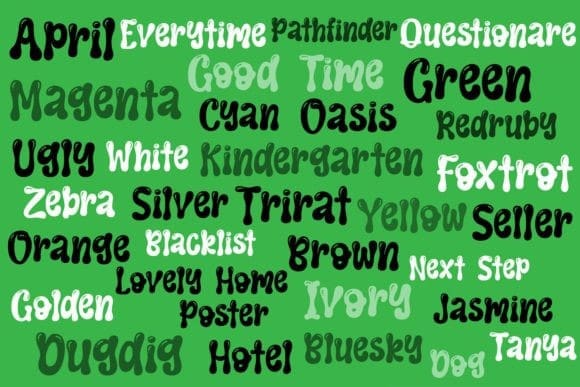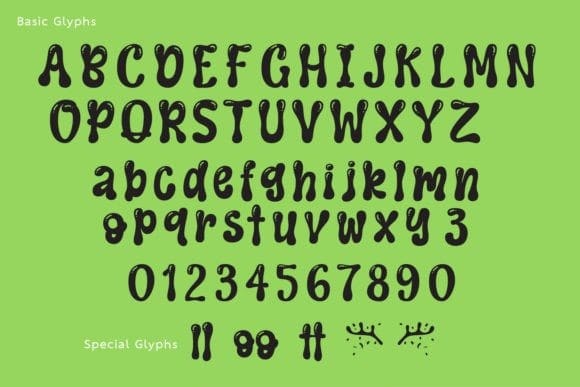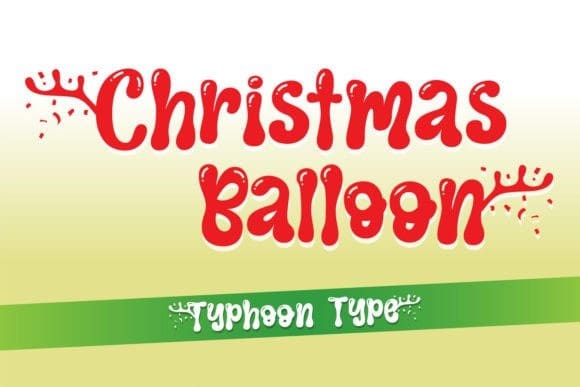
Christmas Balloon Font
Christmas Balloon Font is an English font that dances with the festive spirit of Christmas. With its whimsical design, the characters take on the delightful appearance of inflated balloons, featuring enlarged heads and tails reminiscent of cheerful bubbles. This font exudes a playful and lively quality, adding a touch of merriment to your text.
The buoyant and contemporary vibe of “Christmas Balloon” makes it an ideal choice for a variety of advertising projects. Whether it’s for banners, social media posts, or promotional materials, this font injects a sense of fun and celebration, ensuring your designs stand out and spread the joy of the holiday season in a truly modern and captivating way.